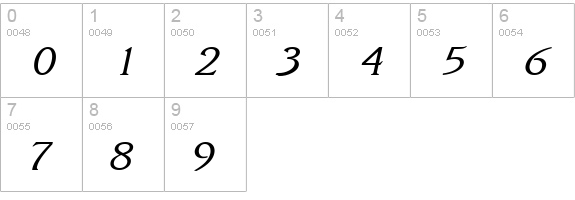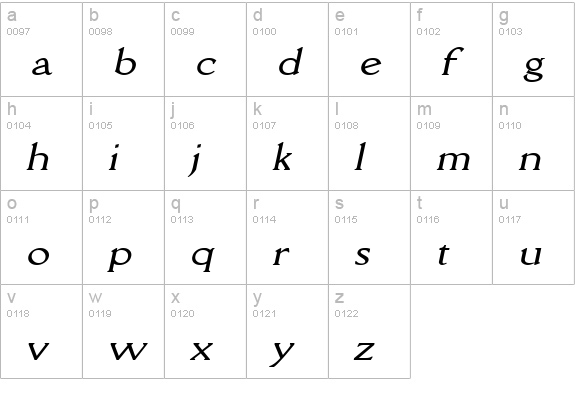
Rory Wide Italic is a distinctive, extended-width, italic variant in the Rory typeface family \xE2\x80\x94 well suited to design and typography projects.
Rory Wide Italic is a modern and stylish font that exudes confidence and sophistication. Its wide and italic design adds a touch of elegance to any project, making it perfect for fashion magazines, luxury brands, and upscale events. The sleek lines and unique curves of Rory Wide Italic create a visually stunning look that is sure to captivate any audience. Best of all, Rory Wide Italic is completely free to download at FontsMarket.com. This means you can elevate your designs with this stunning font without any cost. Whether you're working on a professional project or a personal creative endeavor, Rory Wide Italic is the perfect choice to make a bold statement. Download it today and add a touch of flair to your next design!